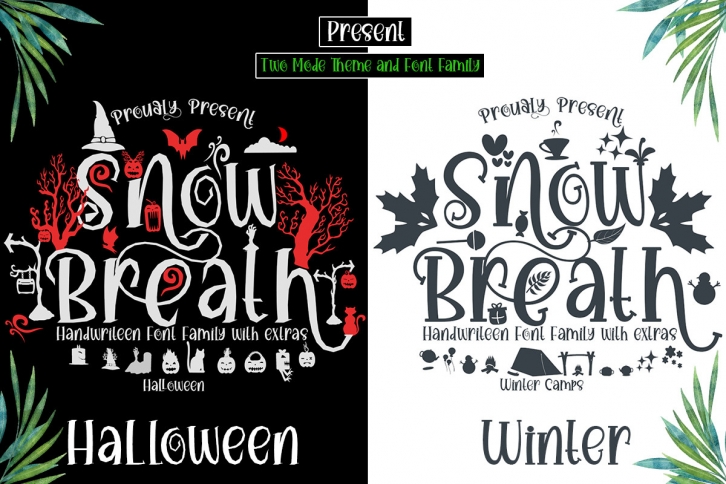
Snow Breath is an exciting duo font family (serif and dingbats) with lovely different styles and accents that can elevate any crafty idea! Use it for horror storybooks, titles, winter designs, Halloween projects, or more.